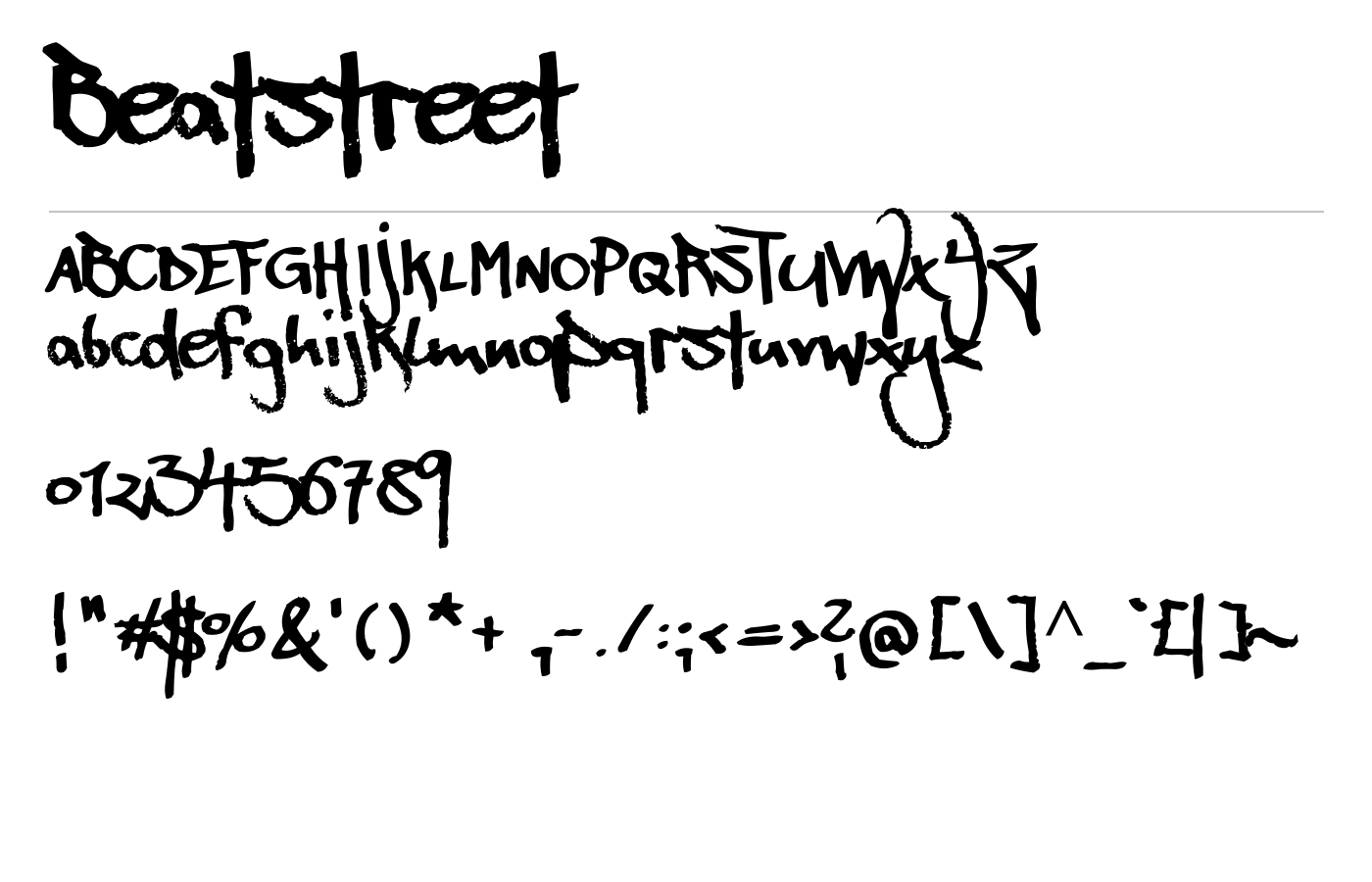
Beatstreet is a bold, hand-drawn script font with a raw, graffiti-inspired style that brings energy and urban edge to any design. Its irregular, textured strokes and quirky letterforms create an informal, expressive feel, making it ideal for streetwear branding, posters, music projects, and creative headlines that need a vibrant, youthful vibe. This font stands out with its unique personality and dynamic movement, perfect for grabbing attention and adding a rebellious touch.
Beatstreet Font
About Beatstreet Font
| Font family | Beatstreet Font |
| Designer | Danny Bernecker |